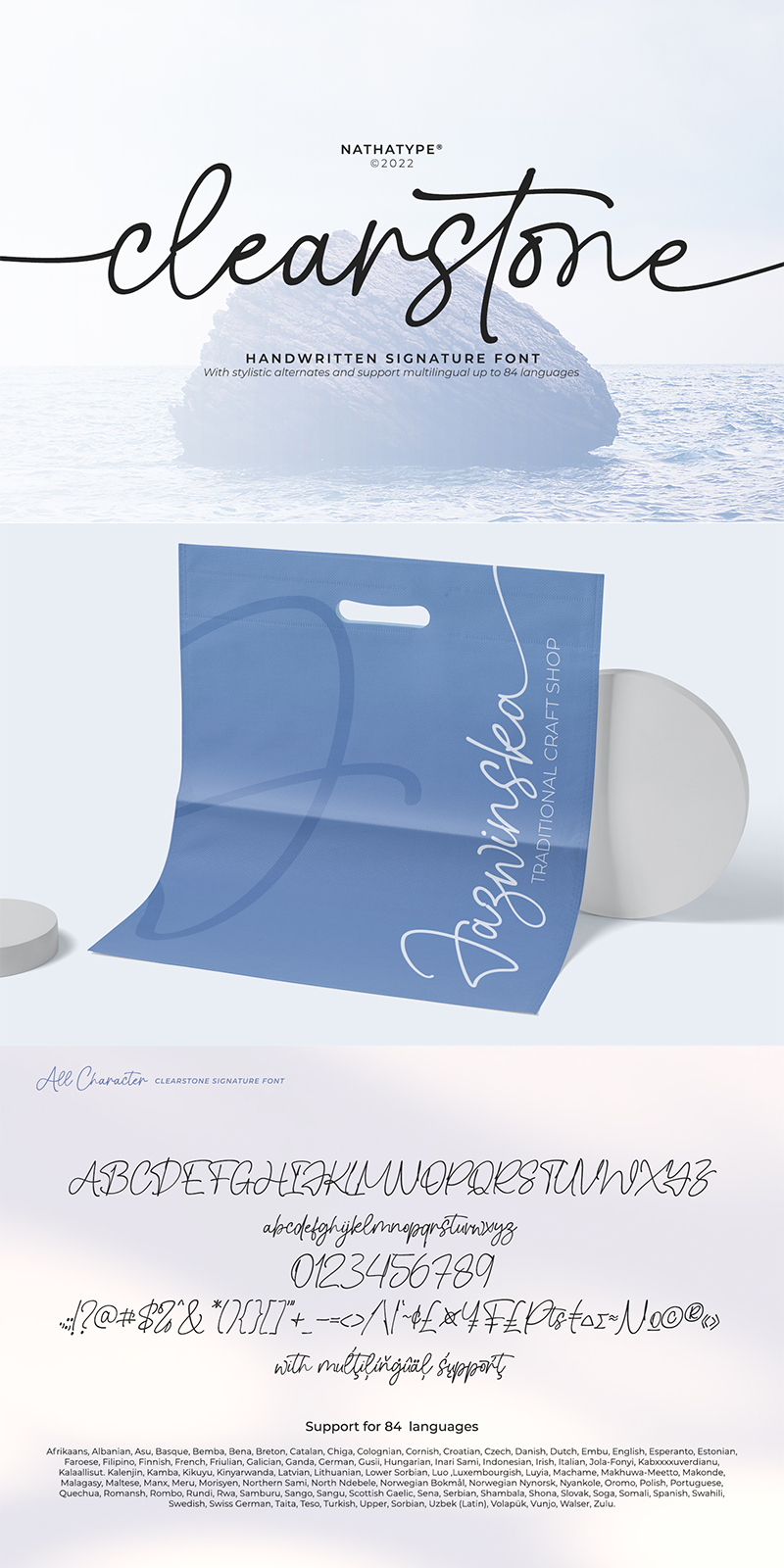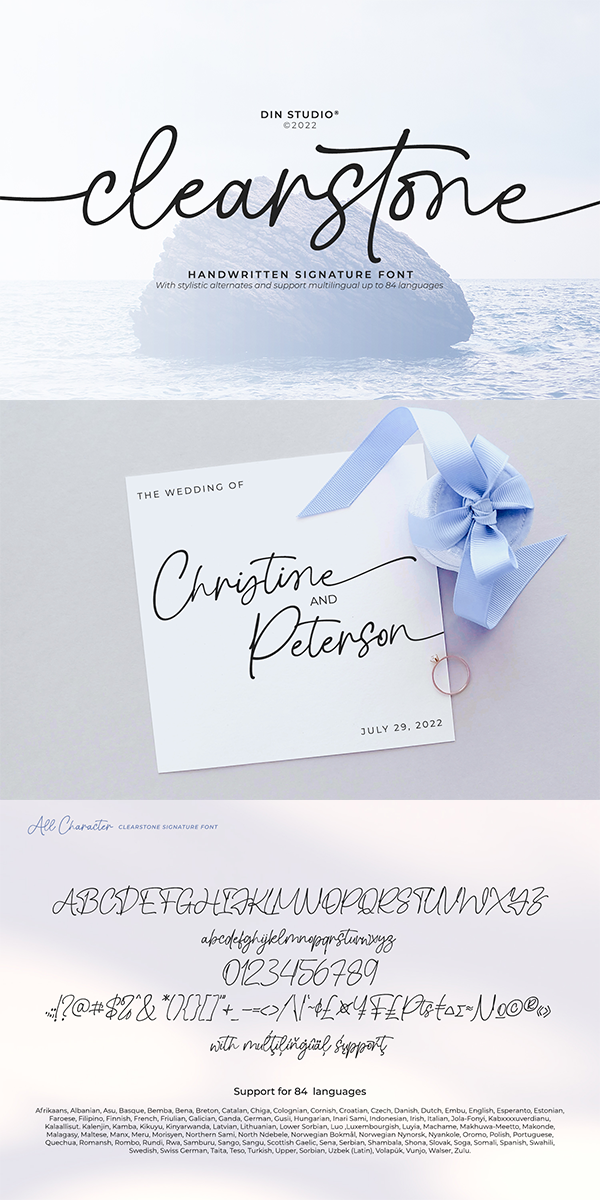
Clearstone Font
About Clearstone
With Clearstone, you can showcase a delightful yet fancy viewing experience that may powerfully highlight your values and communicate well with your customers. Clearstone is a script font that resembles the actual handwriting style. This font is elegant, readable, and has a timeless quality that never goes out of style. Furthermore, this awesome font has fascinating features that allows you maximize your design.
It is perfect to be used for many design projects, such as poster, logo, book cover, branding, heading, printed product, merchandise, quotes, social media campaign, etc. Learn more about how to use it by seeing the font preview.